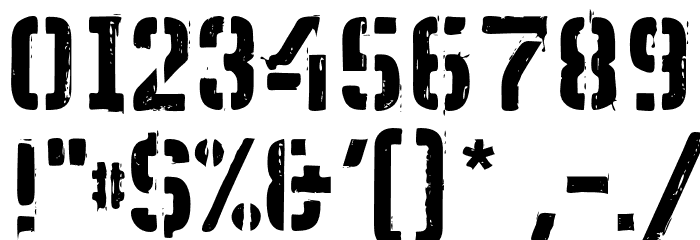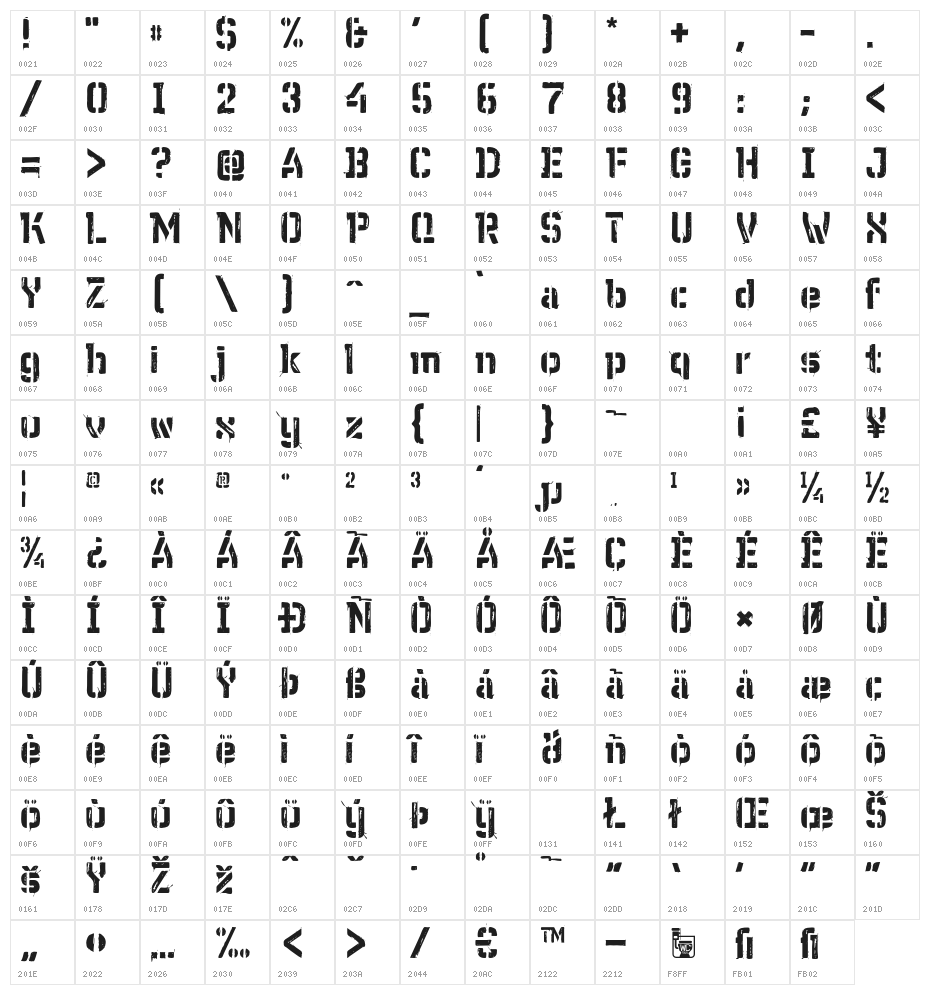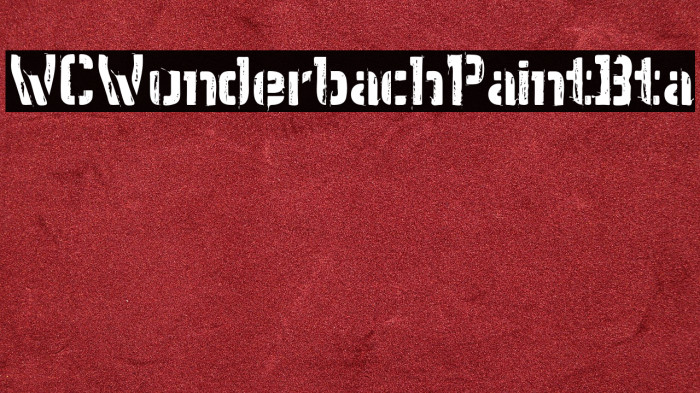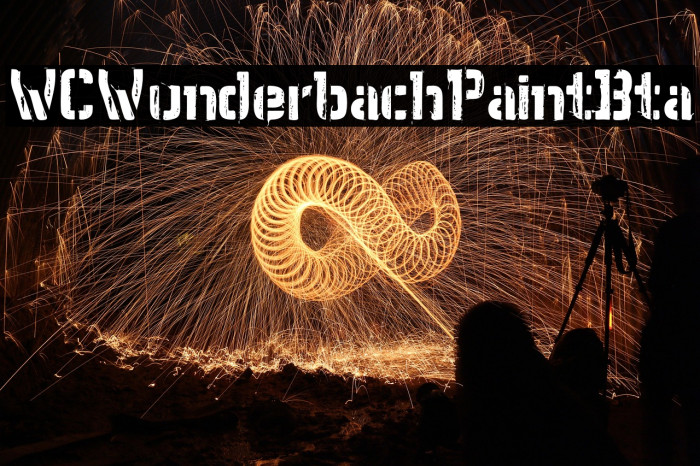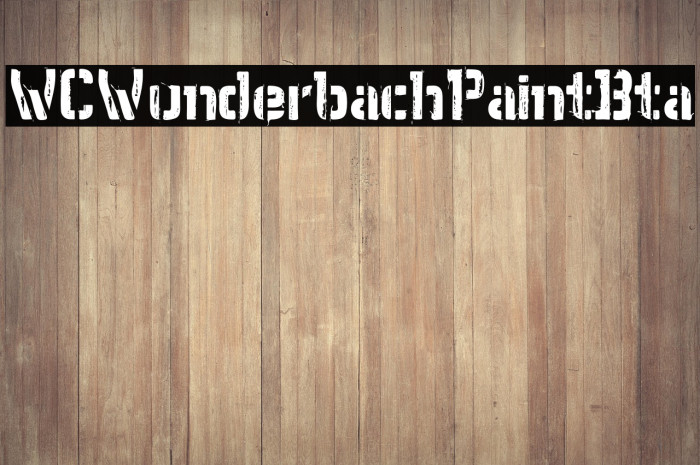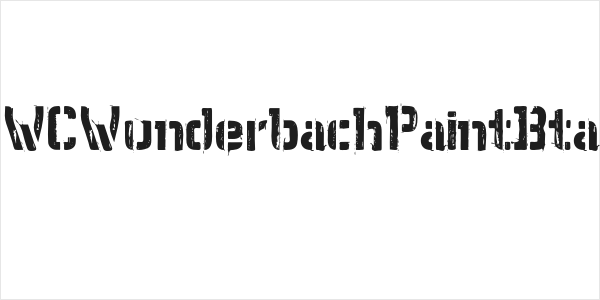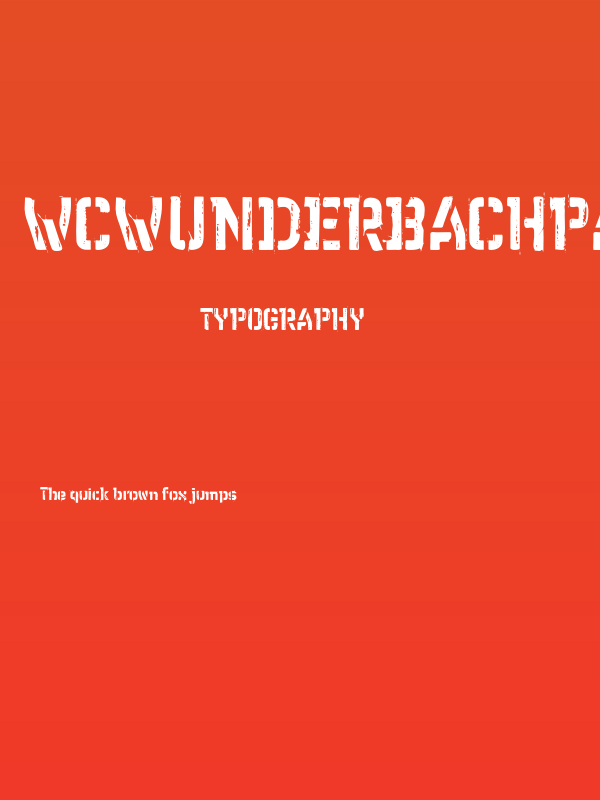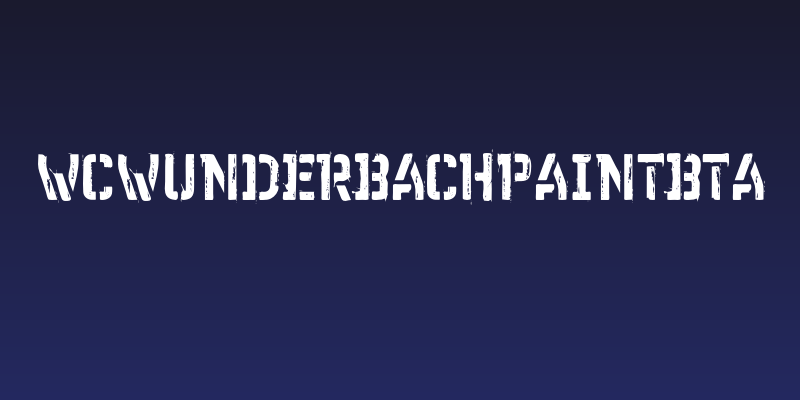
WCWunderbachPaintBta Font
WCWunderbachPaintBta Description
This font features a rugged, distressed style that mimics the appearance of weathered paint or graffiti. The characters are bold and impactful, with irregular edges and a textured look that adds a sense of rawness and urban flair. The uppercase and lowercase letters maintain a consistent design, with each character exhibiting unique imperfections that contribute to the overall aesthetic. Numbers and special characters follow the same stylistic approach, ensuring a cohesive appearance across all elements. This font is ideal for projects that require a gritty, industrial feel, such as street art-inspired designs or edgy branding materials.
| Proposed Projects | Perfect for street art designs, edgy branding, posters, and album covers. |